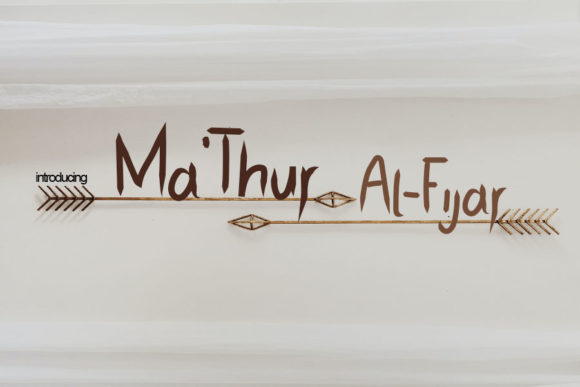
Brace yourself for an unparalleled typographic journey with Ma'thur Al-Fijar, a display font destined to captivate and inspire. Created by the ingenious mind of muhawk47, this font masterpiece is a symphony of creativity, designed to elevate your designs to dizzying heights.
Immerse yourself in the world of Ma'thur Al-Fijar, where every letter is a work of art, meticulously crafted to convey emotions and leave a lasting impression. Its captivating strokes dance across the screen, evoking a sense of wonder and enchantment.
Unlock your creative potential and let Ma'thur Al-Fijar ignite your imagination. Design logos that command attention, invitations that exude elegance, and social media posts that sparkle with personality. Unleash the boundless possibilities of this font, and watch as your designs transform into breathtaking works of art.
Ma'thur Al-Fijar is more than just a font; it's an experience. Experience the sheer joy of turning ordinary words into extraordinary expressions. Feel the pride as your designs captivate audiences and leave them in awe. Embrace the power of Ma'thur Al-Fijar, and redefine the boundaries of creativity.
Don't settle for ordinary fonts that blend into the background. Choose Ma'thur Al-Fijar, the font that stands out, captivates, and mesmerizes. Let your designs radiate with individuality and leave an indelible mark on the world.
Welcome to the world of Ma'thur Al-Fijar, where fonts are not just letters, but emotions, stories, and dreams brought to life. Download Ma'thur Al-Fijar today and embark on a creative journey like no other.